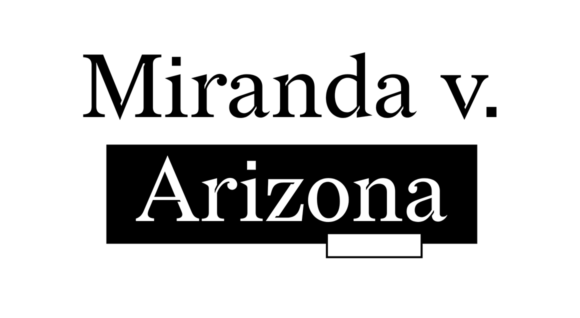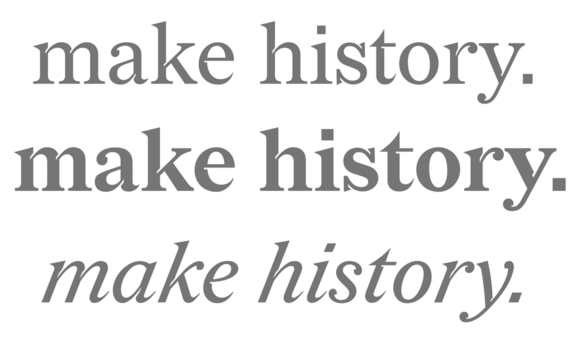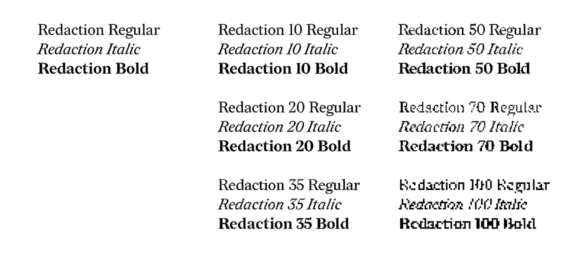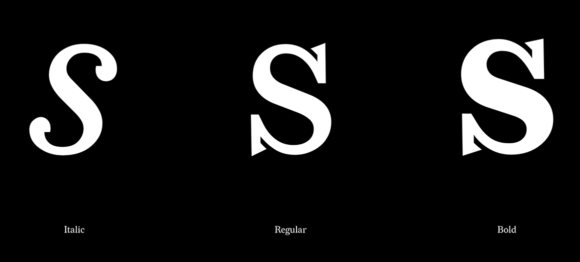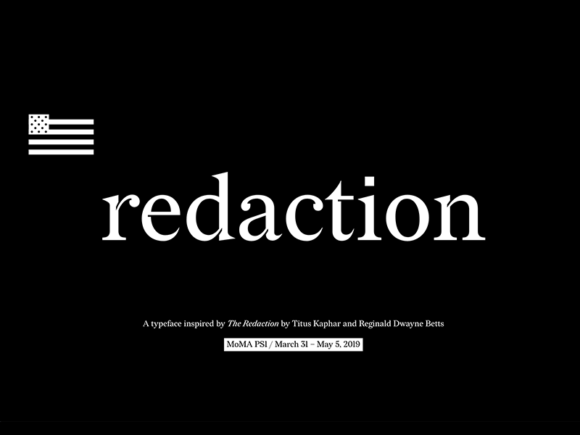
Redaction: Free Serif Font in 21 Styles
Redaction is a free serif typeface available in 3 styles (Regular, Italic, Bold) and 7 grades of degradation, for a total of 21 fonts. This font was commissioned by Titus Kaphar and Reginald Dwayne Betts at exhibition at MoMA PS1. Its intent was to capture the history and problems of the US criminal justice system.
Font Name: Redaction
Font Type: Serif